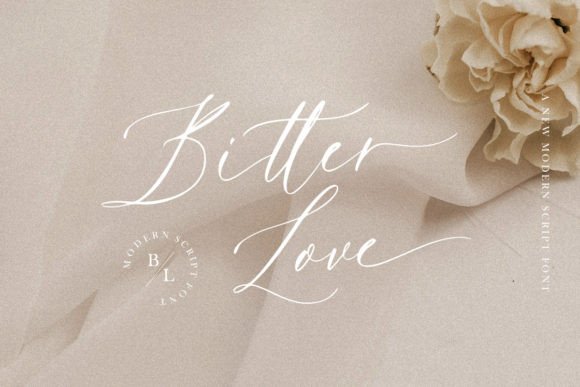
Introducing Bitter Love Font, the Epitome of Elegance and Modernity for Your Wedding Sign Design.
Unveil the enchanting charm of Bitter Love Font, a script font that exudes elegance and sophistication. Crafted by the talented baletype, this captivating font embodies the essence of modern calligraphy, featuring a harmonious blend of fine and bold strokes that flow effortlessly. Inspired by the art of brush lettering, Bitter Love Font captures the beauty of handwritten notes, imparting a natural and expressive touch to your creative projects.
With every letter meticulously designed, Bitter Love Font breathes life into your wedding invitations, adding a touch of timeless allure. Its graceful curves and delicate swashes evoke a sense of romance and intimacy, translating your heartfelt sentiments into a visual symphony. This font is an ode to the artistry of calligraphy, effortlessly replicating the charm and intricacy of handwritten words without the painstaking effort.
Step into a realm of limitless possibilities with Bitter Love Font. Let your creativity soar as you explore its wealth of features, including ligature, alternates, terminals, and end swashes. These elements add depth and dimension to your designs, allowing you to craft truly unique and captivating wedding signs that reflect the essence of your special day. Unleash your imagination and let Bitter Love Font guide you to create a visual masterpiece that captures the magic of your love story.
Indulge in the versatility of Bitter Love Font, a font that transcends the boundaries of wedding invitations. Its timeless elegance extends to a myriad of design projects, lending a touch of sophistication to logos, branding materials, social media graphics, and even website designs. Whether you're a budding entrepreneur, a creative designer, or simply seeking a font that reflects your refined taste, Bitter Love Font is the perfect choice.
Elevate your designs to new heights with Bitter Love Font, a script font that embodies grace, elegance, and creativity. Embrace the art of calligraphy, express your heartfelt emotions, and let your designs speak volumes about your impeccable taste. Discover the magic of Bitter Love Font today and embark on a journey of artistic expression that will leave a lasting impression.